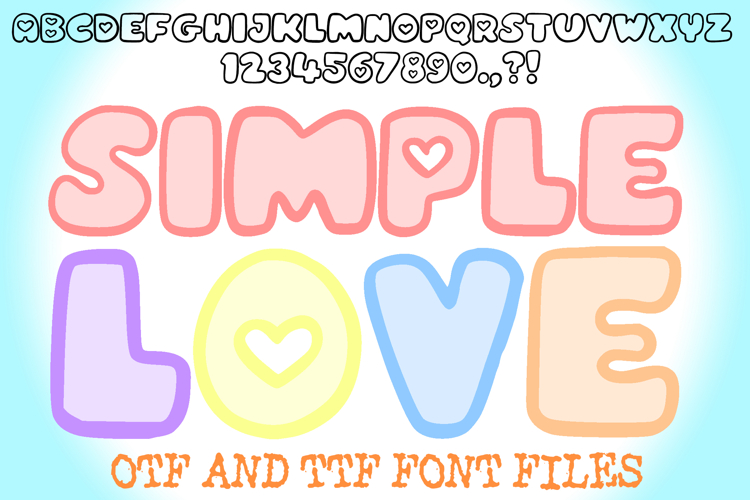
Embrace the sweetness of the season with Simple Love Font, a delightful handmade typeface designed to bring joy and romance to every project! This font features soft, bold "bubble" style characters with rounded edges, creating a friendly and approachable look. The standout feature is the charming hearts nested directly inside the characters, such as the "I," "O," and "V," making it a perfect choice for love-themed designs.
Capturing a whimsical and artisanal feel, Simple Love Font is ideal for creators who want a clean yet highly decorative aesthetic. Whether you are designing colorful Valentine’s cards, trendy apparel, or playful social media graphics, this font provides a cohesive and heartwarming vibe.
Ideal For:
- Valentine’s Day Crafts: Perfect for "Be Mine" banners, romantic gift tags, and custom stickers.
- Apparel & Sublimation: Create adorable T-shirts, mugs, and hoodies with a soft, bubbly look.
- Teacher & Classroom Resources: Great for holiday-themed bulletin boards and student worksheets.
- Digital Planning: Add a sweet, colorful touch to your digital planners and journals.